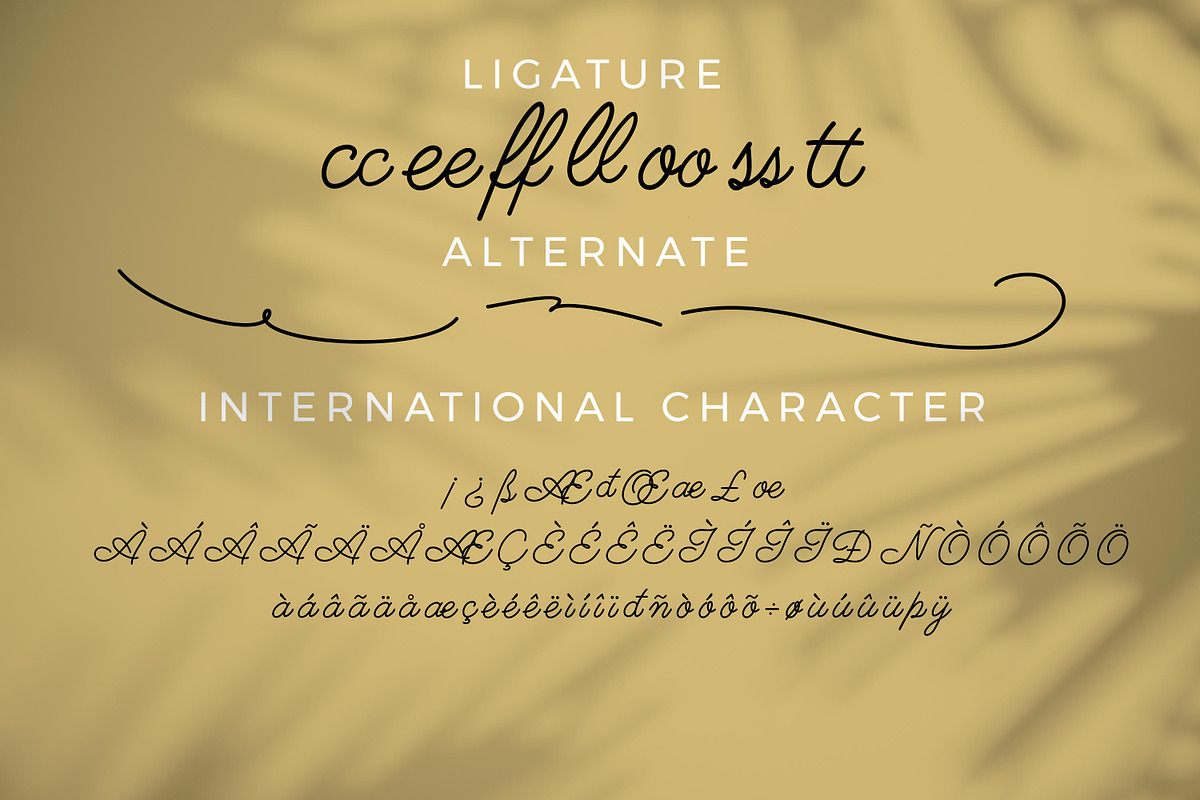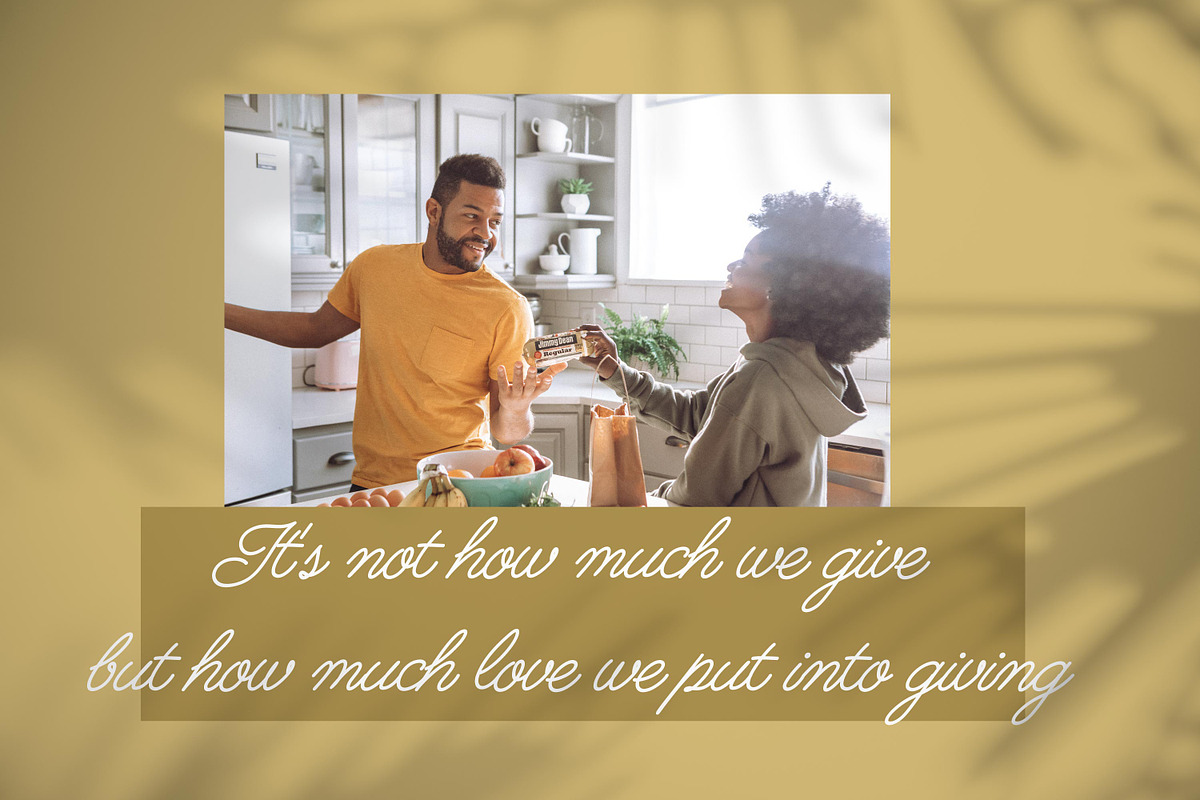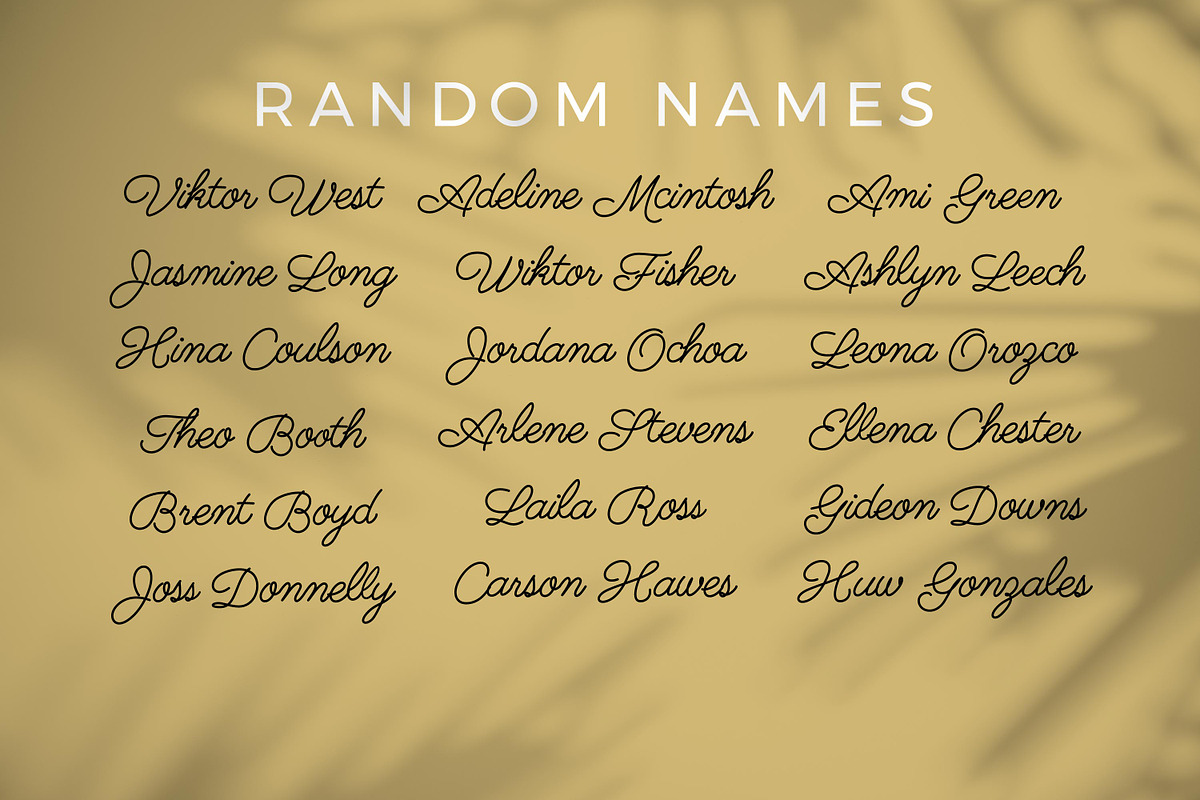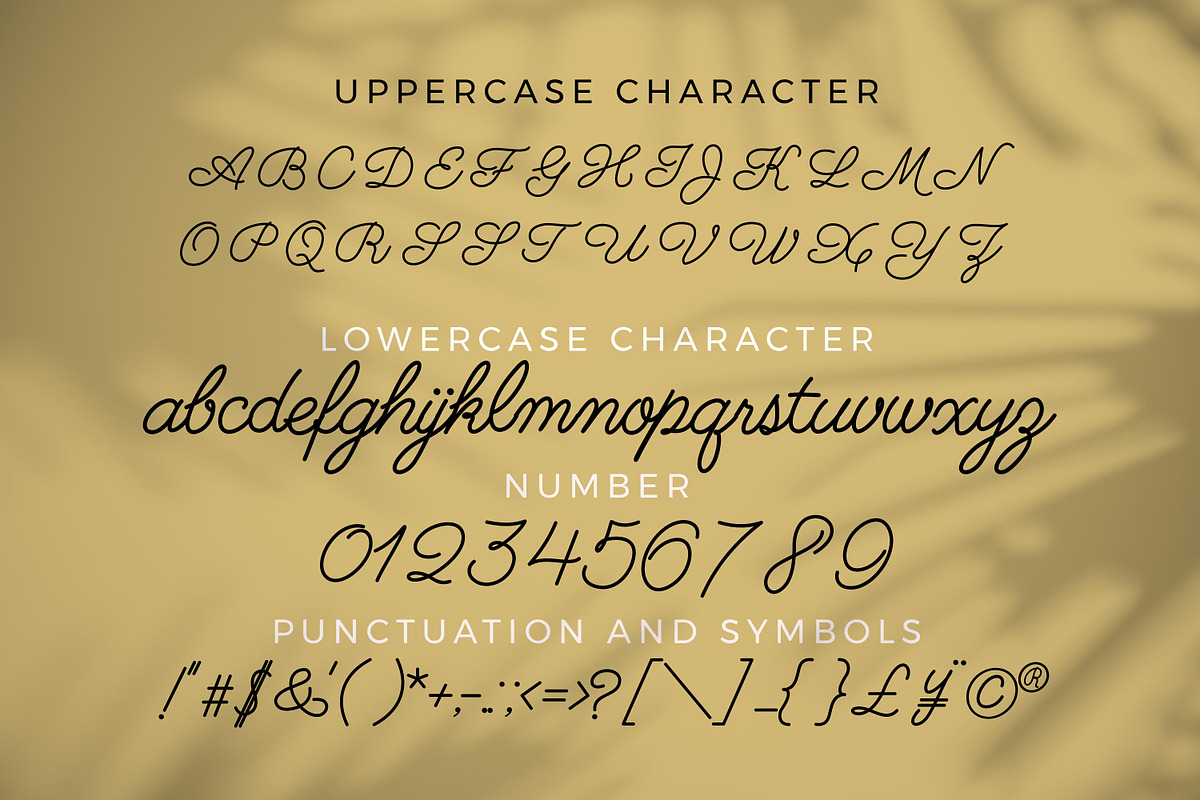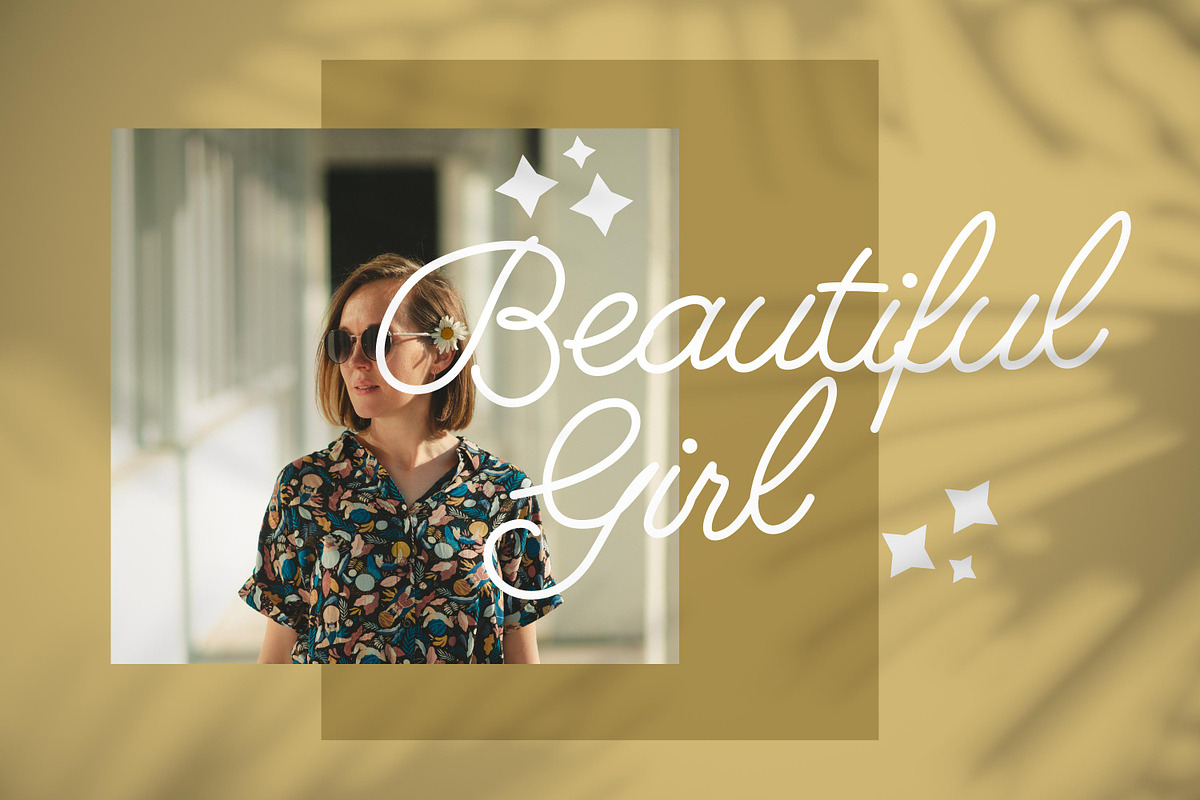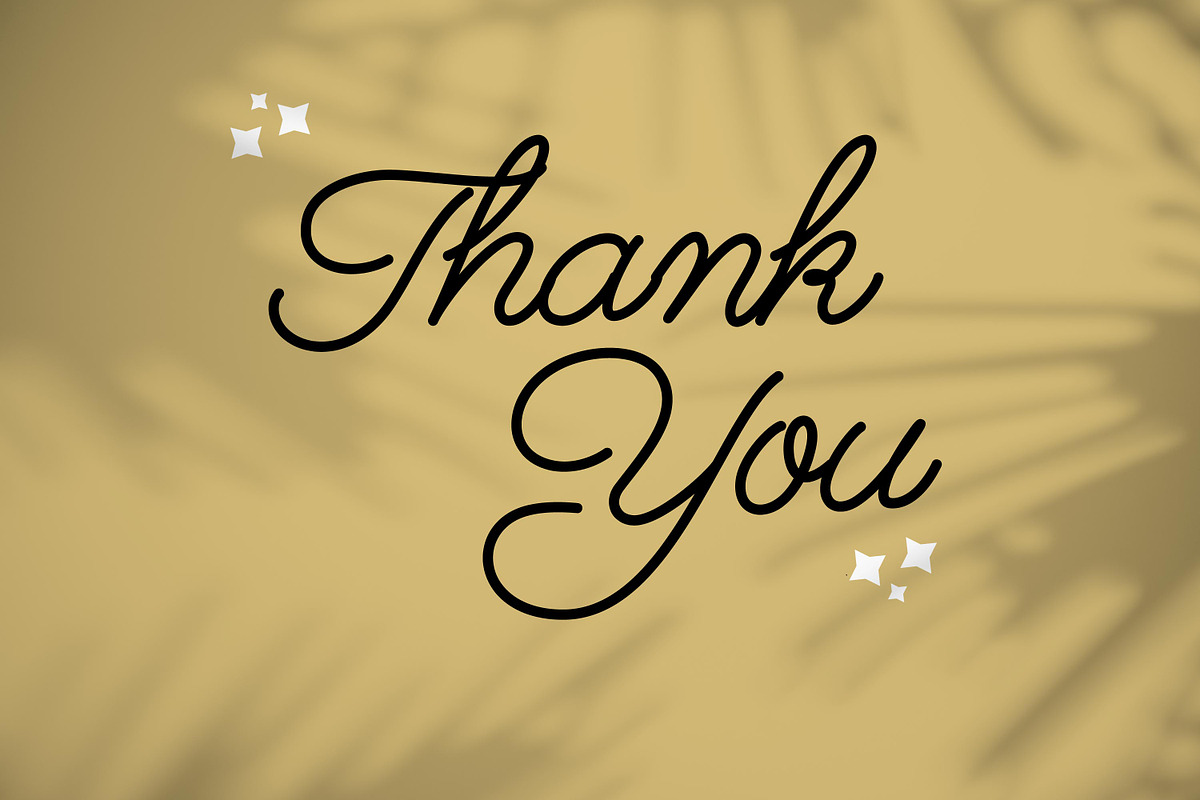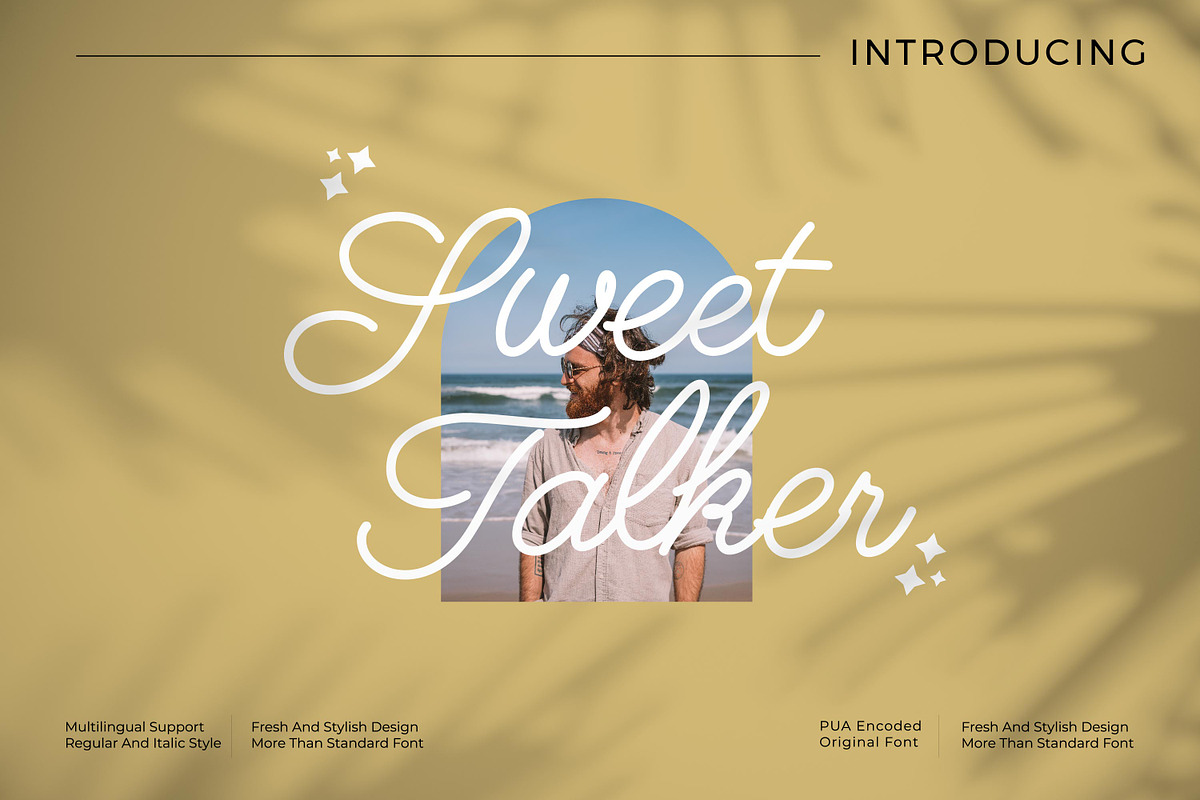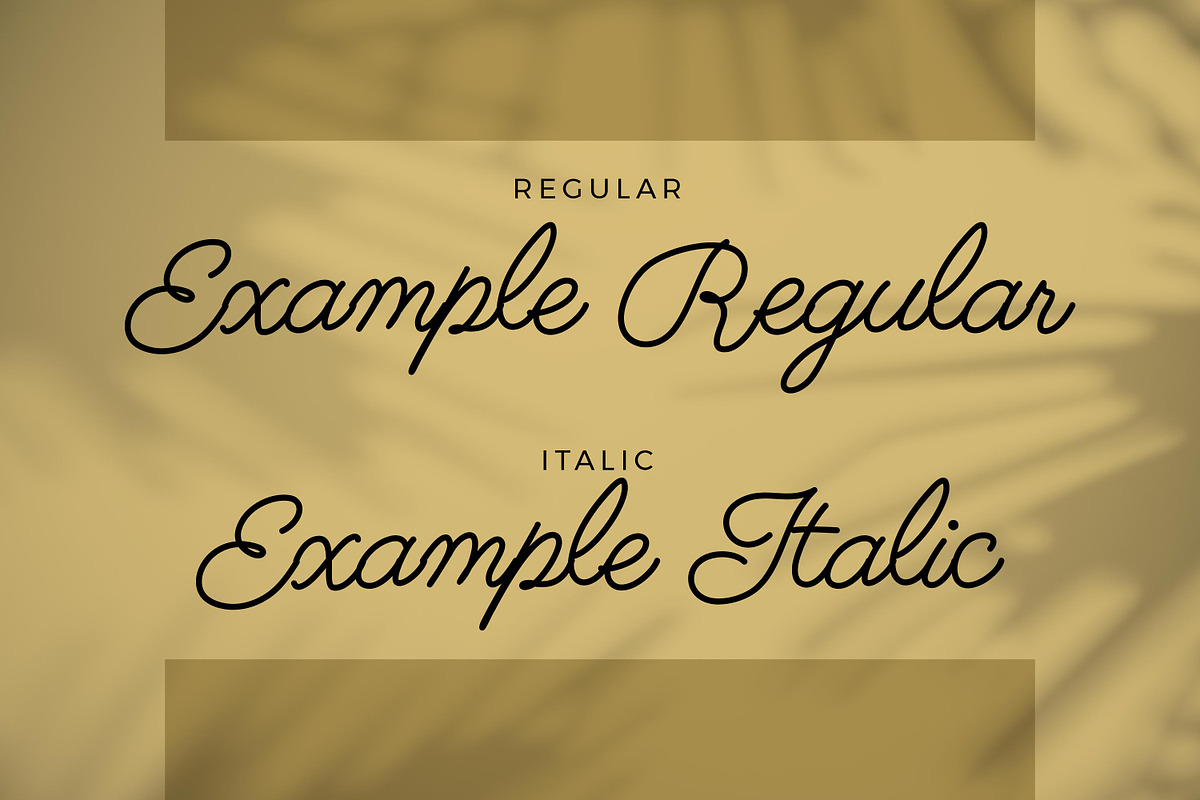
Sweet Talker - Monoline Script style
Sweet Talker - Monoline Script style font, suitable for any projects such as: logos, branding projects, homeware designs, product packaging, mugs, quotes, posters, shopping bags, t-shirts, book covers, name card, invitation cards, greeting cards, label, photography, watermark, special events, and all your other luxury projects that need a premium signature taste.